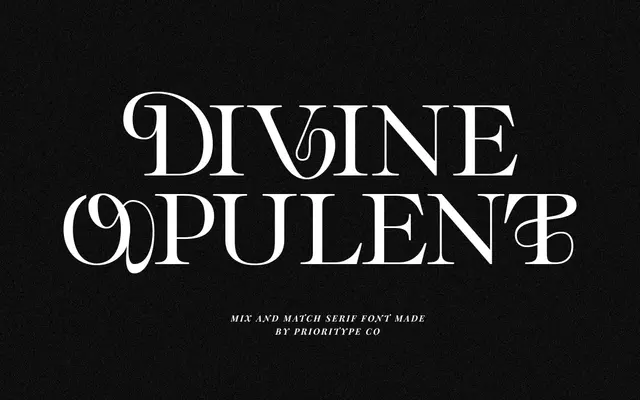
Divine Opulent – Display Serif
A single-weight display serif with deliberately mismatched uppercase and lowercase letterforms, aimed at fashion branding and poster work.
The mixed-case aesthetic is the central conceit here: upper and lowercase letters are designed to contrast with each other, creating visual tension intended for logos, posters and cosmetic branding. Available in OTF, TTF and WOFF formats, it covers an extensive range of Latin-based languages. A narrow brief executed at a modest level of craft, best suited to decorative applications where texture matters more than typographic precision.
A decorative serif designed explicitly for display use, with mixed uppercase and lowercase letterforms as its primary aesthetic feature, placing it firmly in the display category rather than a functional text serif.